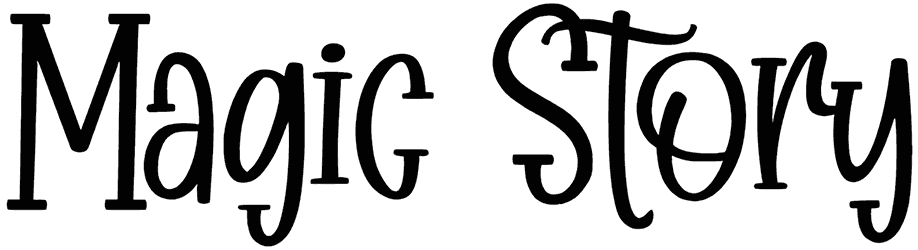
Magic Story Font
Designed bySubectype Orenari
Finding the proper font for design may look challenging, but RB is here to help you out with a handy cartoon font. This magic font transforms your creations into fantastic works of art.
Its distinct personality and friendly appearance may provide you with more flexibility when making posters, invites, social media postings, and garment designs, among other things. Choose a few more comic fonts from our extensive selection to go above and beyond.